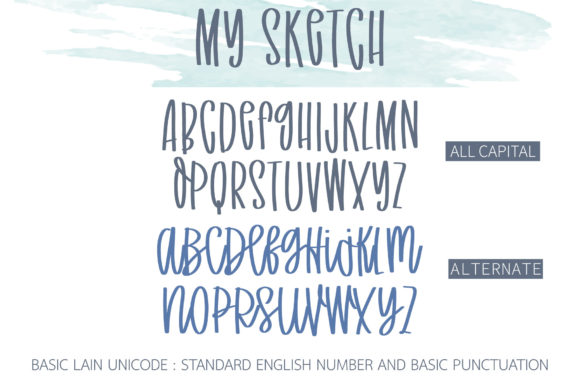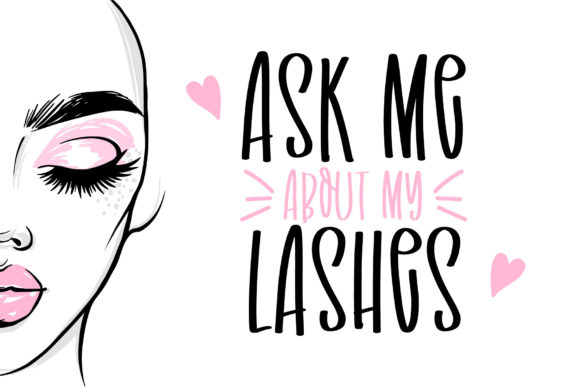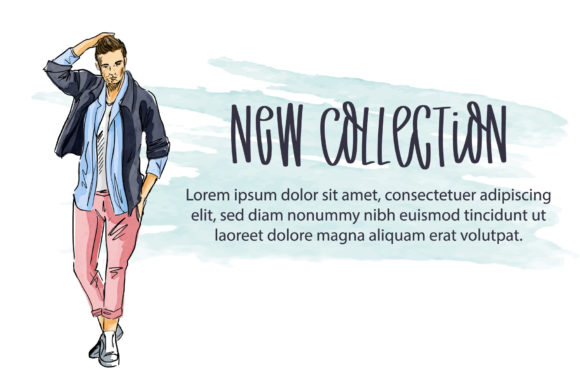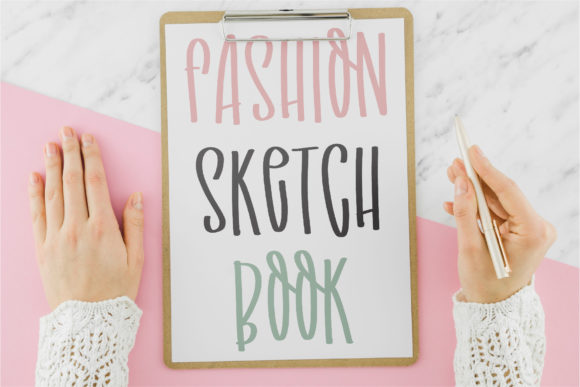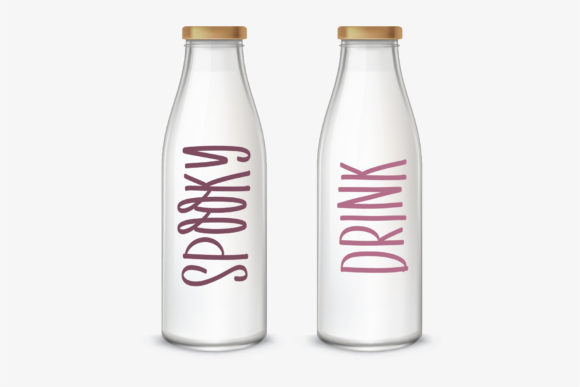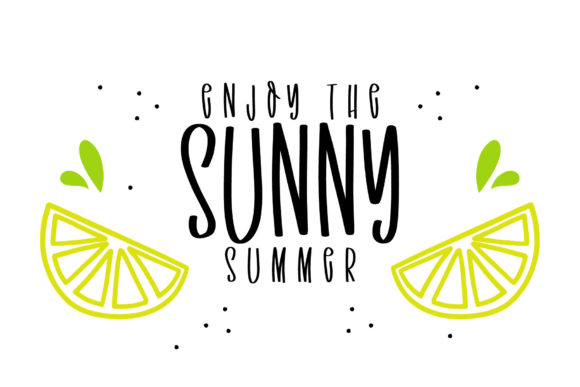
Introduction to My Sketch Font Font
Fonts play a crucial role in design, and the My Sketch Font font is a typeface that brings both character and versatility to any project. Whether you’re working on a branding project, a website, or a print design, the My Sketch Font font offers a unique style that can elevate your work.
My Sketch is a cute and relaxed handwritten font.
Its natural and unique style makes it incredibly a large pool of designs The only limit is your imagination.
Key Features of My Sketch Font Font
Why Choose My Sketch Font Font?
The My Sketch Font font is more than just a typeface – it’s a design tool that helps you communicate your message with style and clarity. Its unique character set and versatile design make it suitable for a wide range of applications, from elegant invitations to bold headlines.
With its carefully crafted letterforms and balanced proportions, the My Sketch Font font ensures readability and visual appeal across all mediums.
What makes My Sketch Font font special?
The My Sketch Font font stands out with its unique design, exceptional readability, and versatility across various design applications.